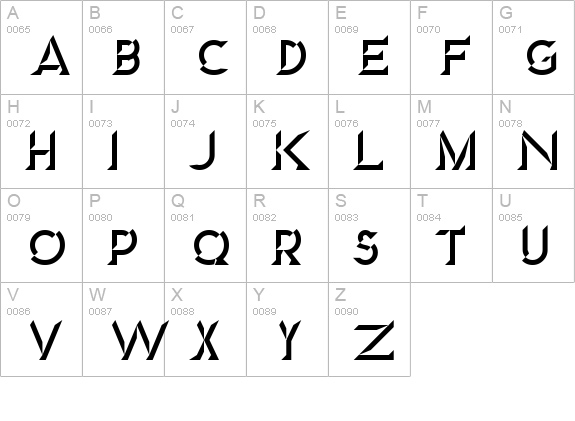
Introducing Diamond font, a captivating typeface that exudes elegance and sophistication. Inspired by the brilliance and allure of diamonds, this font is a true gem in the world of typography. With its sleek and polished design, Diamond font adds a touch of glamour to any project or design. This exquisite font features clean lines and sharp angles, reminiscent of the intricate facets found in a diamond. Its bold and commanding presence on the page instantly captures attention and leaves a lasting impression. Whether used in headlines, logos, or invitations, Diamond font effortlessly elevates any text to new heights of style and refinement. But what sets Diamond font apart from other fonts is its unique feature of being freely available. Yes, you heard it right! Diamond font can be downloaded for free at FontsMarket.com, allowing designers, creatives, and enthusiasts alike to enjoy the beauty and prestige of this remarkable font without any cost. With its wide range of characters, Diamond font offers versatility and adaptability to suit various design needs. It is equally suitable for modern, minimalist layouts as well as classic, elegant compositions. Its flawless legibility ensures that your message will be conveyed with utmost clarity, while its artistic flair adds a touch of luxury to every word. So, why settle for ordinary when you can have extraordinary? Download Diamond font for free at FontsMarket.com and unlock the power and radiance of this exceptional typeface. Let your designs sparkle and shine with the brilliance of diamonds, and leave a lasting impression on your audience with Diamond font.